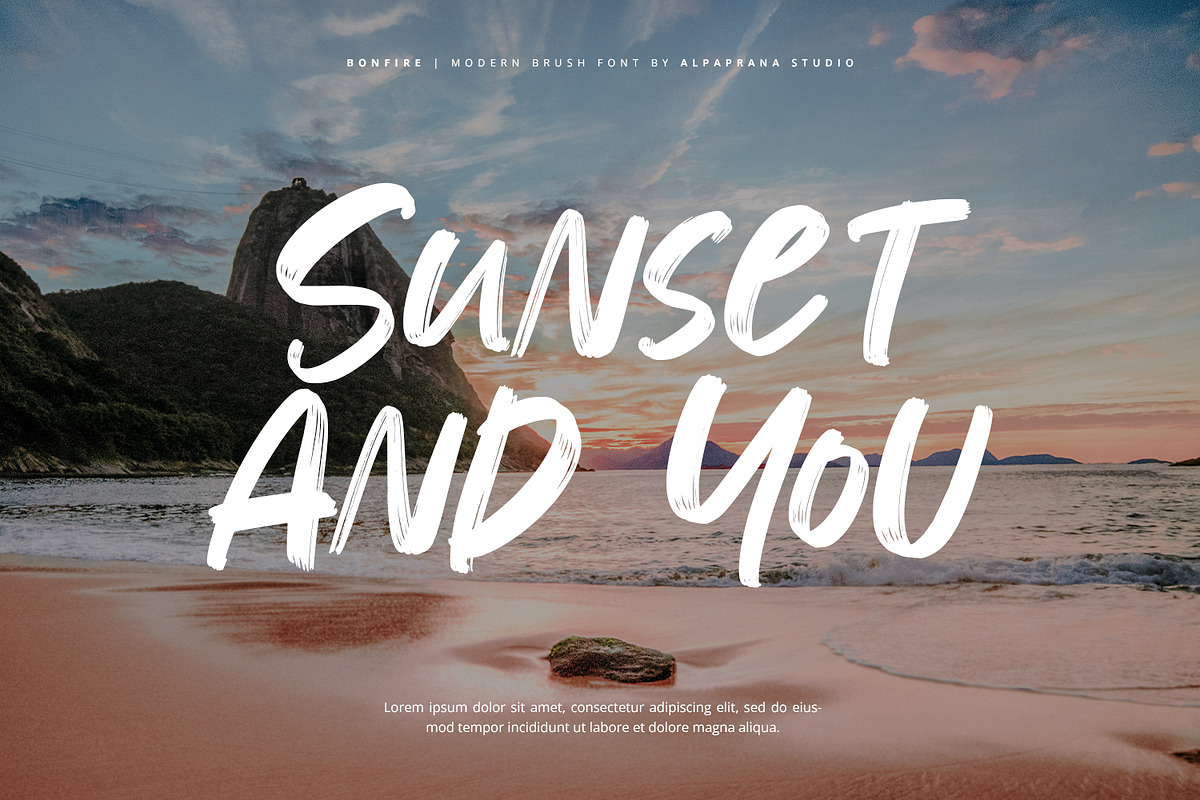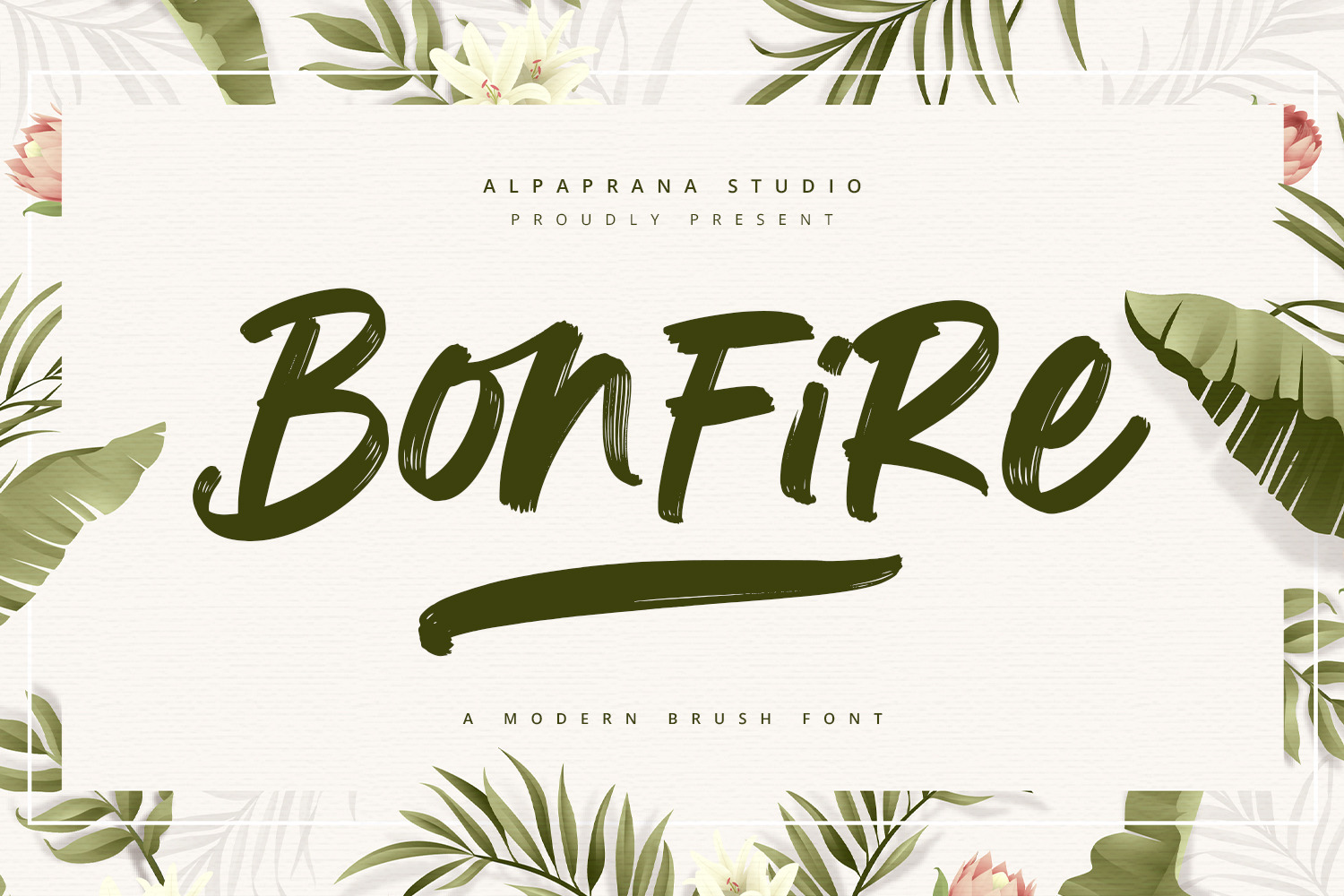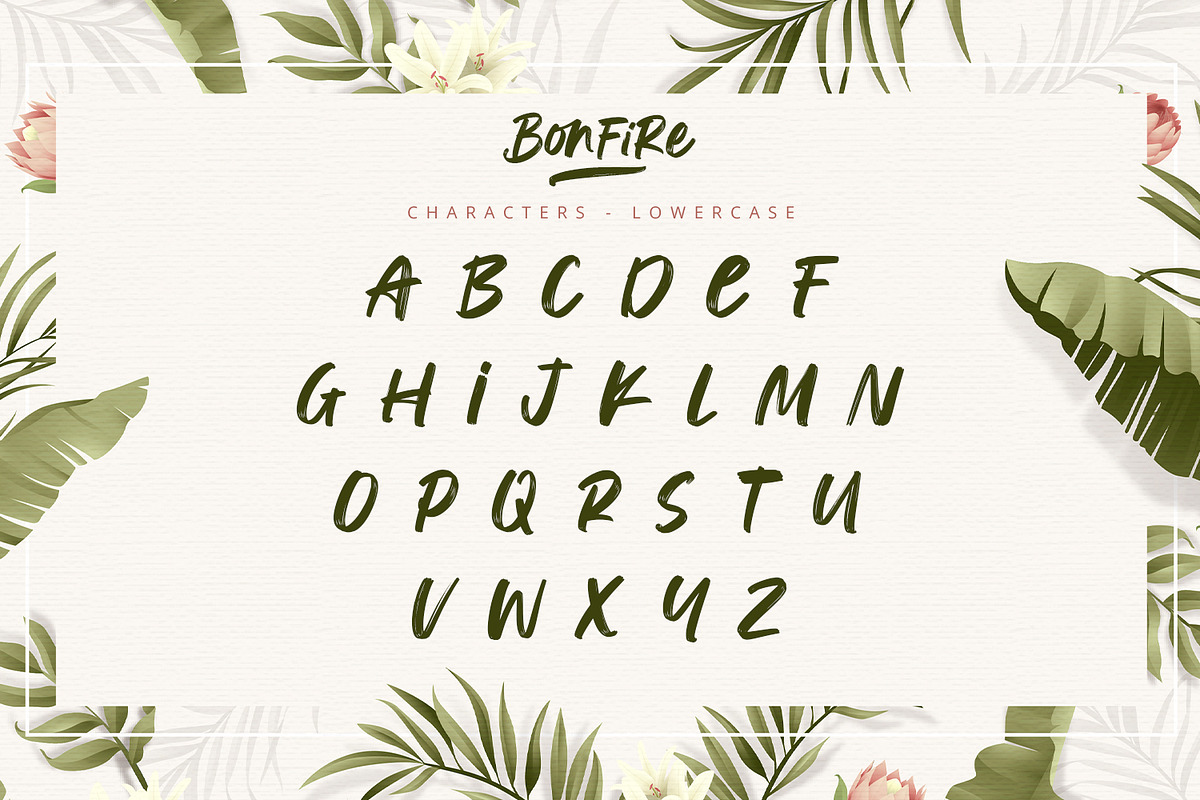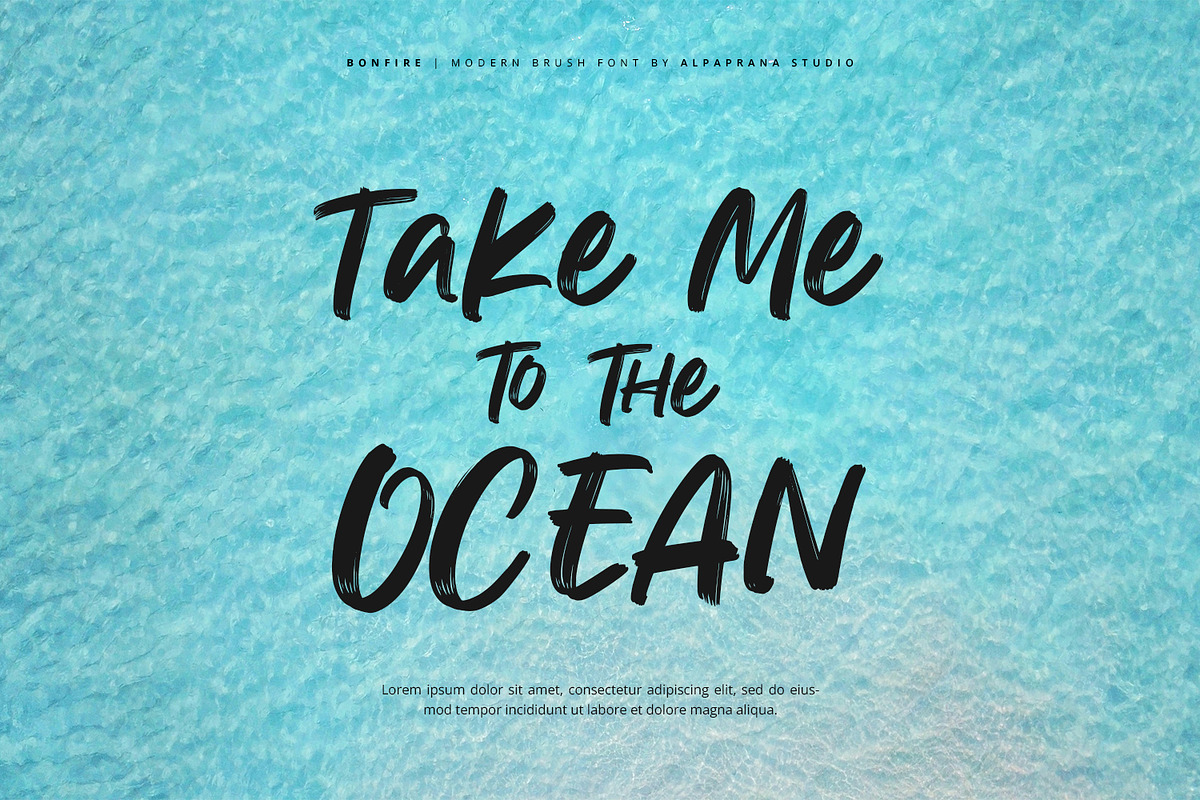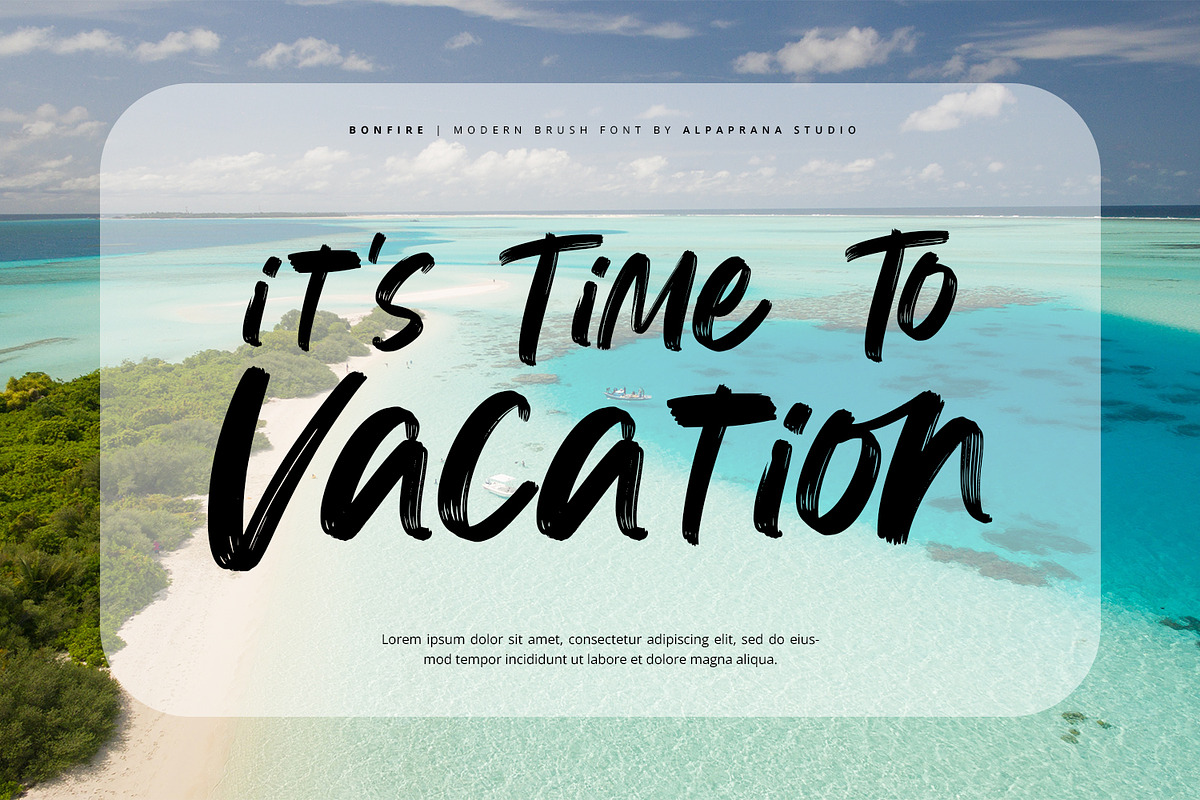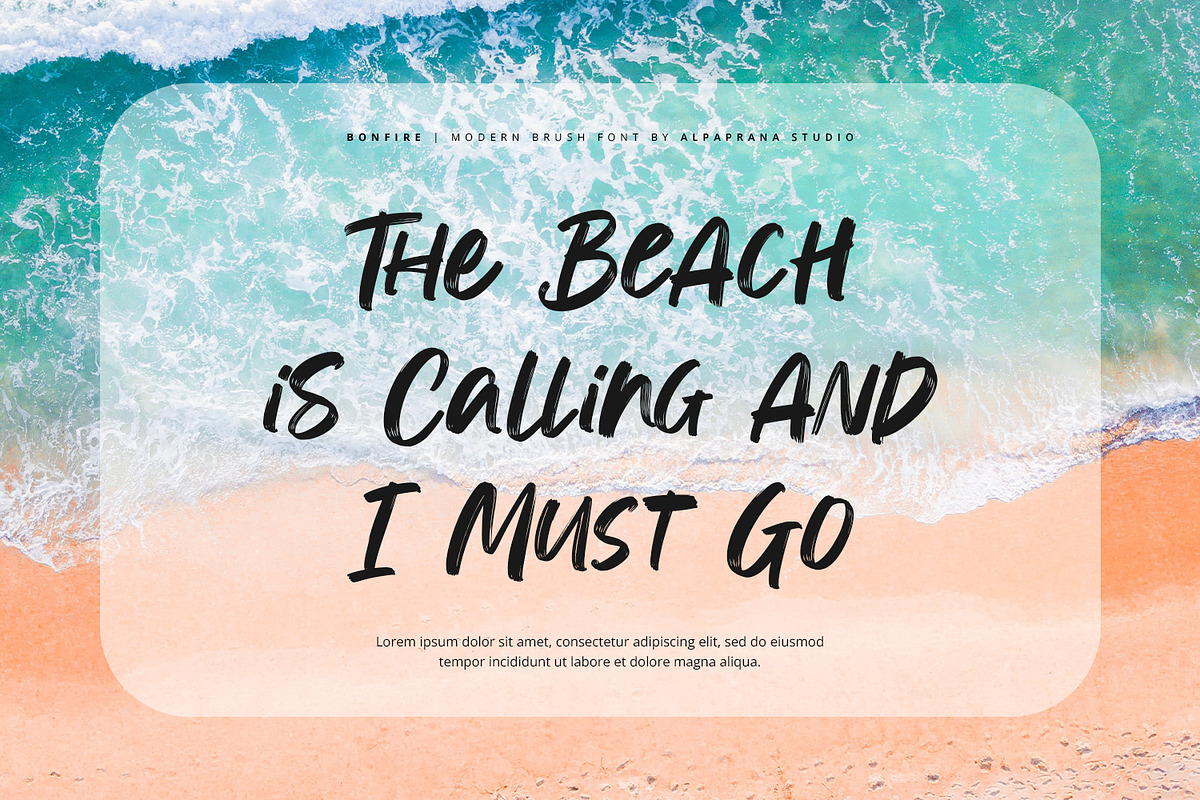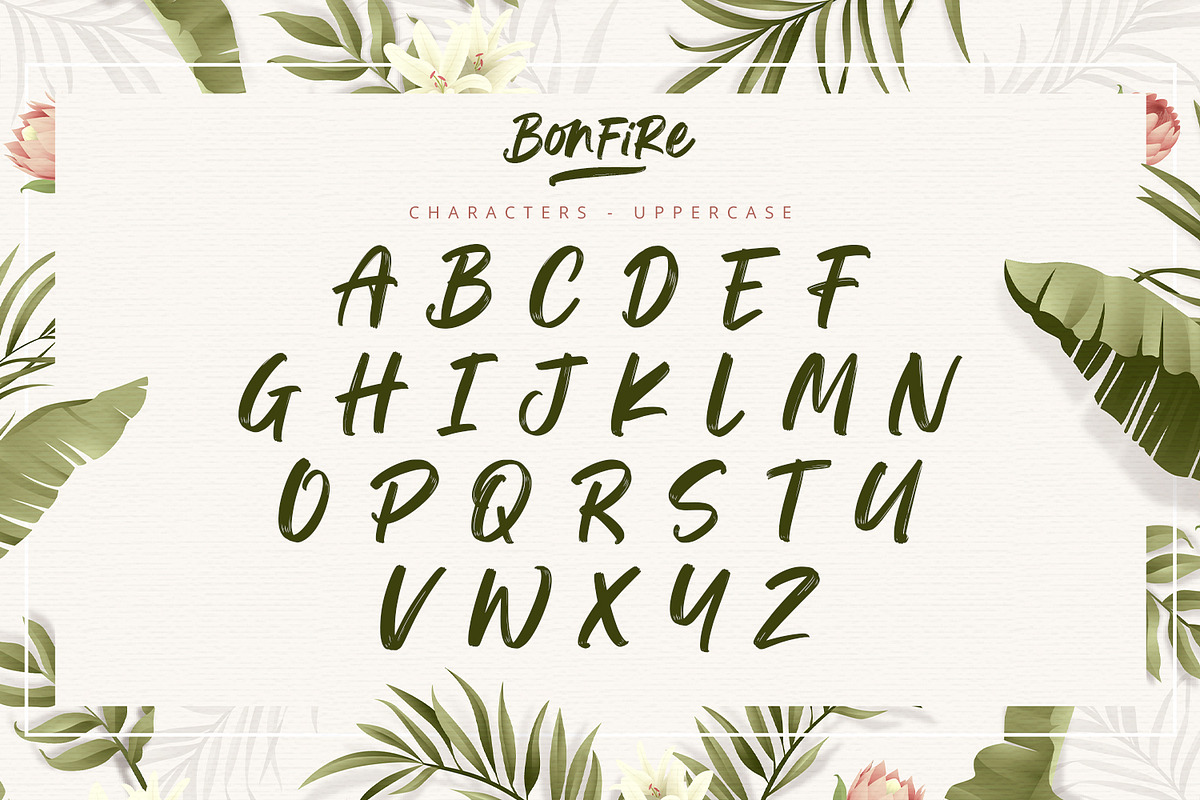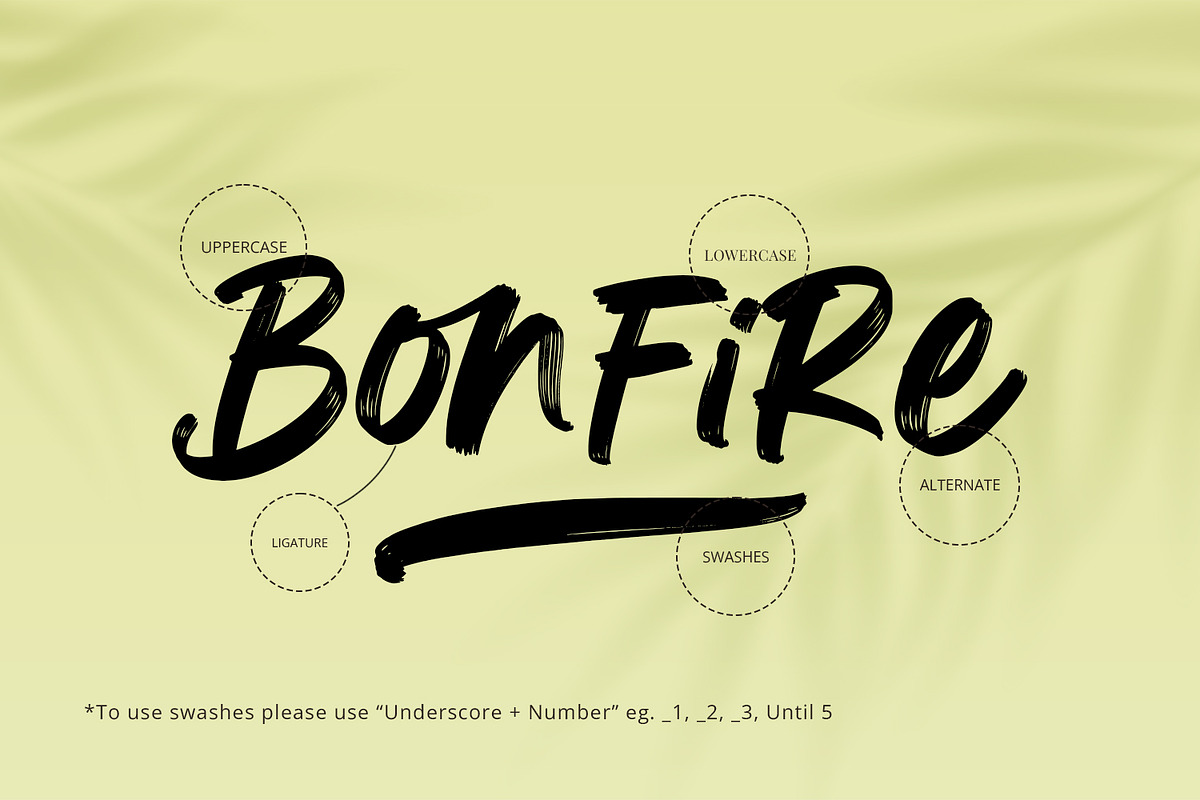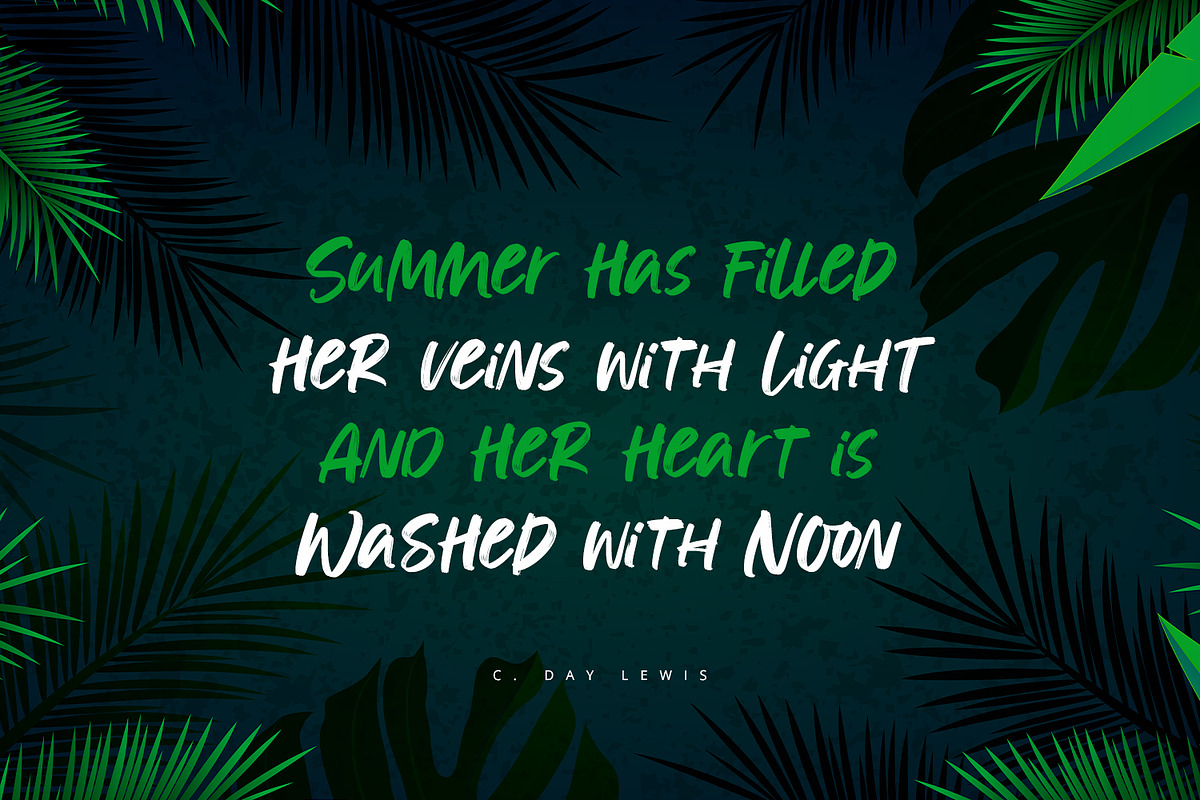
Bonfire - Modern Brush Font
Bonfire is a modern brush font with authentic brush and modern feels. It will be perfectly used for Branding, Logo Design, Lettering, Logotype, Clothing, Poster, magazine, packaging, posters, shopping bags, t-shirts, book covers, photography, special events and other design project.